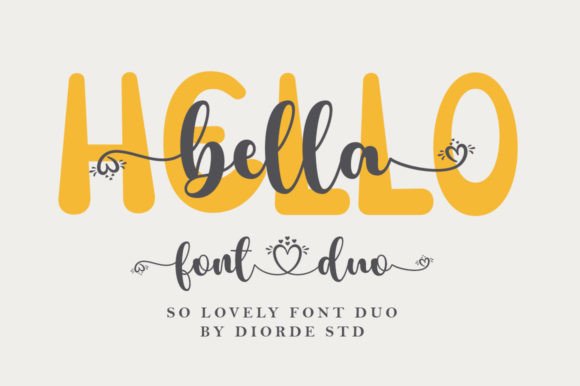
Welcome to the captivating world of Hello Bella Duo, a font duo that brings elegance and grace to your digital creations. This beautiful pair of fonts, crafted by the talented Diorde Studio, perfectly complements each other to create a harmonious visual experience. Immerse yourself in the allure of Hello Bella Duo and discover endless possibilities for your design endeavors.
With its delicate strokes and flowing lines, the script font exudes a romantic charm that will leave a lasting impression. Design heartfelt greeting cards that capture the essence of love and friendship, or create elegant invitations that hint at the enchantment of a special occasion. This font's inherent elegance will elevate your words, making them dance across the page with a captivating allure.
The sans serif font, with its clean and modern lines, provides a striking contrast to the script, creating a visual symphony that commands attention. Use this font to craft bold headlines that demand to be noticed, or employ it in logos and branding designs that exude sophistication and poise. The versatility of the sans serif font makes it an ideal choice for a wide range of projects, from corporate presentations to personal branding.
As a PUA-encoded font, Hello Bella Duo offers effortless access to a diverse range of glyphs and swashes. Unleash your creativity and explore the endless possibilities to add intricate details and flourishes to your designs. With Hello Bella Duo at your fingertips, you'll have the power to transform ordinary text into breathtaking works of art.
Discover the magic of Hello Bella Duo today and ignite the creative spark within you. Let your designs bloom with romance and sophistication as you embark on a journey to captivate and inspire with every stroke of your keyboard. Embrace the allure of Hello Bella Duo and let your imagination soar to new heights.